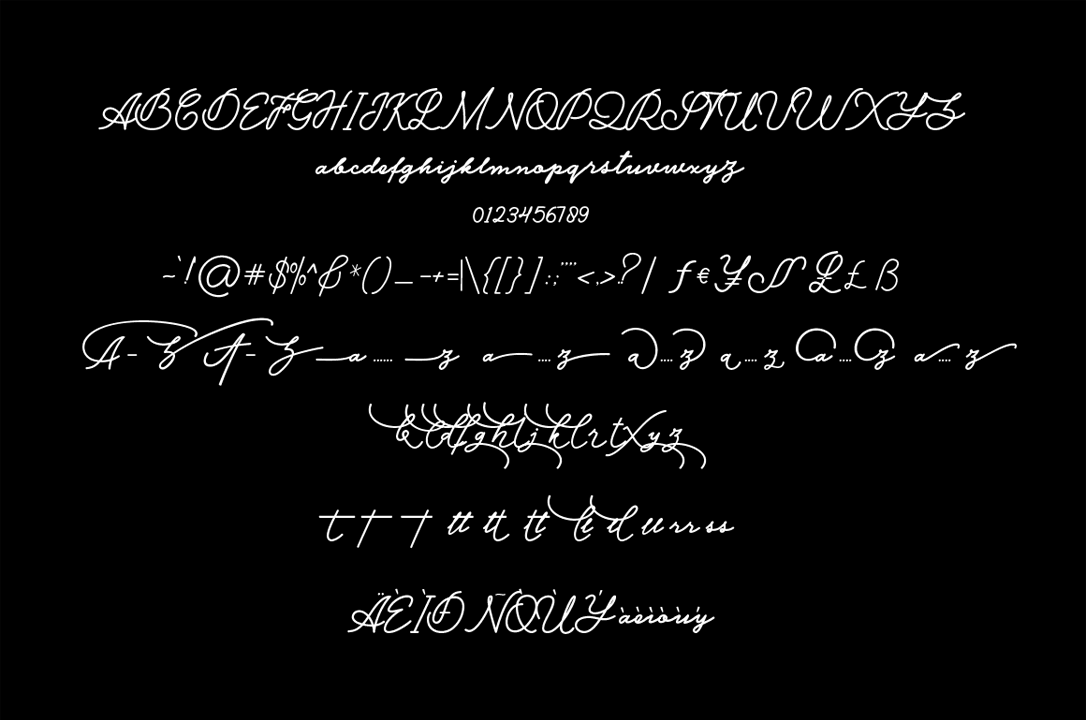
Designed by Symon Adam, Herawati is a dingbat and script font family. This typeface has two styles and was published by JORSECREATIVE.
Herawati Signature. This font is designed for font users who like the Modern Character. This font is equipped with various alternate front and rear characters as well as upper and middle fonts, so it is suitable for signature, pearl word, book title, magazine title, invitation card, or works that require original handwriting character. No less important this font is equipped with Alternative Swash and ligature.